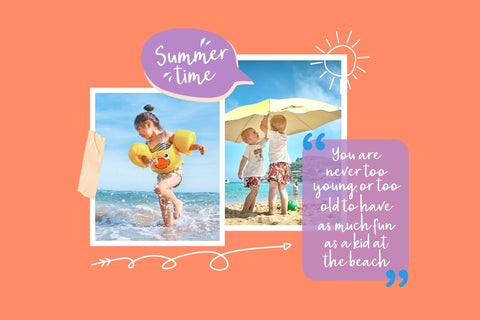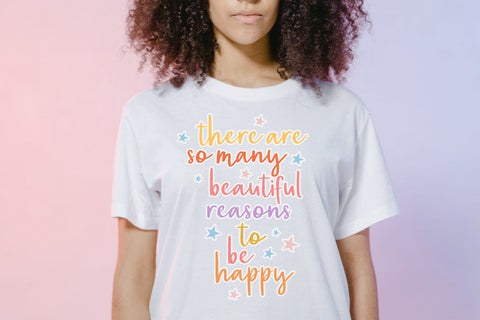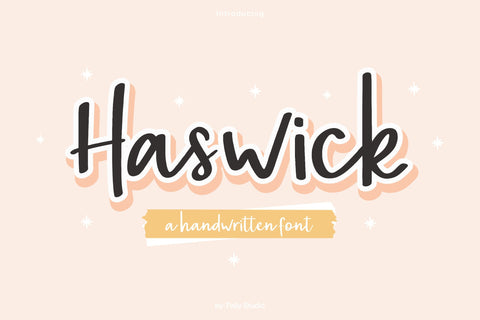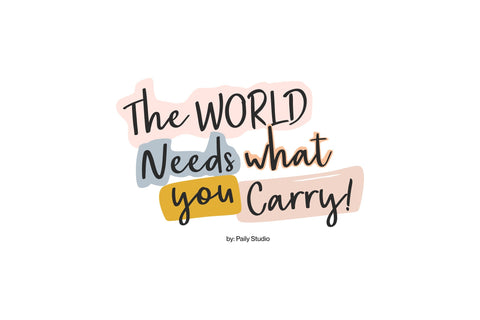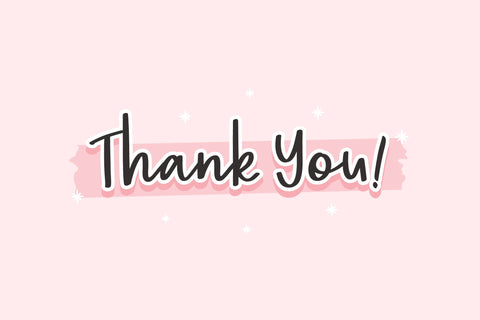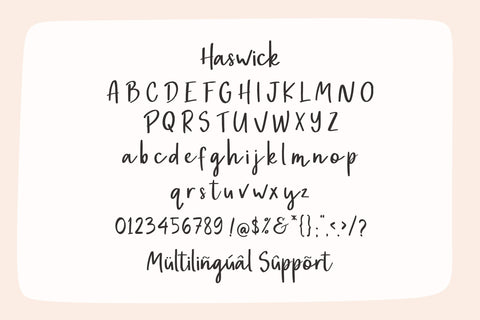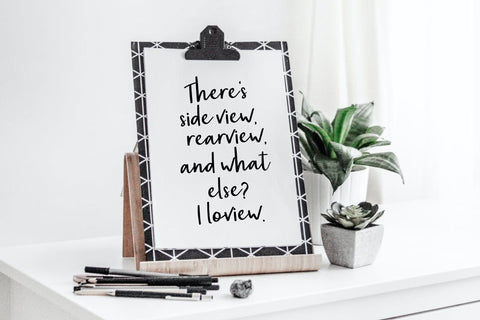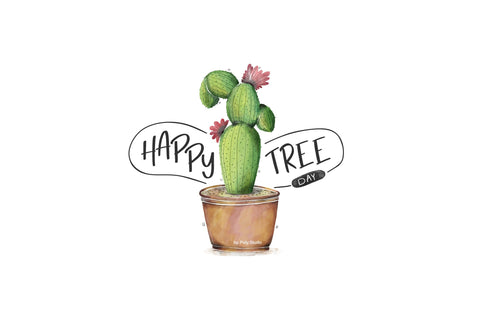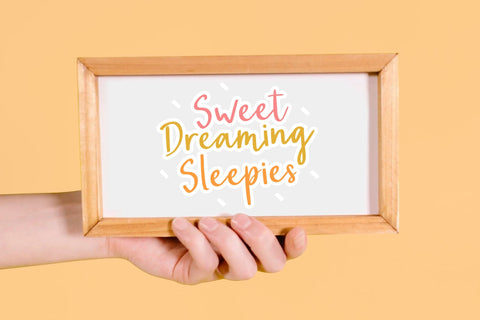
Haswick Handwritten Font
Haswick a Handwritten Font.
Haswick is a casual and chic handwritten font. It is the best choice for creating eye catching logos, branding and quotes. Every letter has a unique and beautiful touch, which will make your design come alive!